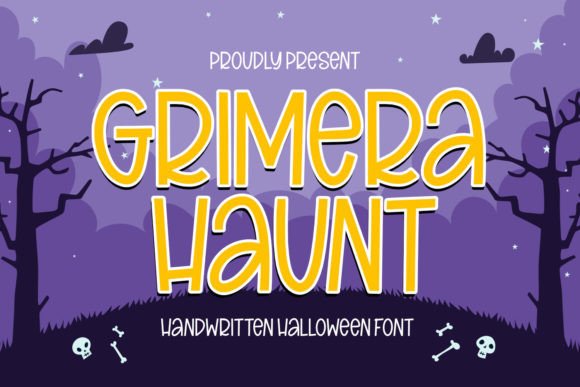
Grimera Haunt Font: Unleashing the Magic of Halloween in Your Designs
Are you looking for a font that can add a touch of Halloween magic to your designs? Look no further than Grimera Haunt, a handwritten font that is intricately designed to bring forth an appealing blend of fun and spooky aesthetic. In this article, we’ll dive into the world of Grimera Haunt and explore its unique features, versatility, and how it can transform your design endeavors.
The Story Behind Grimera Haunt
Grimera Haunt is a one-of-a-kind font that has been crafted with a touch of Halloween magic. Its unorchestrated creation brings forth a unique and full-of-personality design that is sure to capture the attention of your audience. The font’s creator aimed to design a typeface that would evoke the spirit of Halloween, with all its fun and spooky connotations. And, with Grimera Haunt, they’ve successfully achieved that goal.
Key Features of Grimera Haunt
So, what makes Grimera Haunt stand out from the rest? Here are some of its key features:
- Handwritten Design: Grimera Haunt boasts a beautiful, handwritten design that gives it a personal and organic feel.
- Halloween-inspired: The font is intricately designed with Halloween elements, making it perfect for designs that require a spooky touch.
- Unique and Full of Personality: Grimera Haunt has a distinct character that sets it apart from other fonts.
- Versatile: This font can be used for a wide range of design projects, from merchandise and invitations to digital canvases and stickers.
Uses of Grimera Haunt
Grimera Haunt is an incredibly versatile font that can be used for various design projects. Here are some ideas to get you started:
- Merchandise: Add a touch of Halloween magic to your merchandise, such as t-shirts, hoodies, and tote bags.
- Invitations: Create spooky and fun invitations for Halloween parties, events, or gatherings.
- Cards: Design unique and personalized greeting cards for Halloween or any occasion.
- Digital Canvases: Use Grimera Haunt to add a playful touch to your digital art, illustrations, or graphics.
- Stickers: Create eye-catching stickers with Grimera Haunt that can be used for laptops, water bottles, or any other surface.
Adding a Delightful Sprinkle of Fright to Your Designs
Grimera Haunt is more than just a font – it’s an experience. When used in your designs, it can add a delightful sprinkle of fright that will leave your audience spellbound. Here are some tips to help you make the most of Grimera Haunt:
- Experiment with Different Sizes: Play around with different font sizes to create visual interest and hierarchy in your designs.
- Combine with Other Fonts: Pair Grimera Haunt with other fonts to create a unique and visually appealing typography.
- Use it for Headlines or Titles: Grimera Haunt is perfect for headlines or titles, where its bold and playful personality can shine.
- Add Halloween Elements: Take your designs to the next level by incorporating Halloween elements, such as pumpkins, bats, or ghosts.
In conclusion, Grimera Haunt is a one-of-a-kind font that can add a touch of Halloween magic to your designs. Its unique and full-of-personality design makes it perfect for a wide range of projects, from merchandise and invitations to digital canvases and stickers. With Grimera Haunt, you can unleash the charm of Halloween in your designs and leave your audience spellbound. So, what are you waiting for? Embrace Grimera Haunt and let it add a delightful sprinkle of fright to your design endeavors.
- What is Grimera Haunt? Grimera Haunt is a handwritten font intricately designed with a touch of Halloween magic.